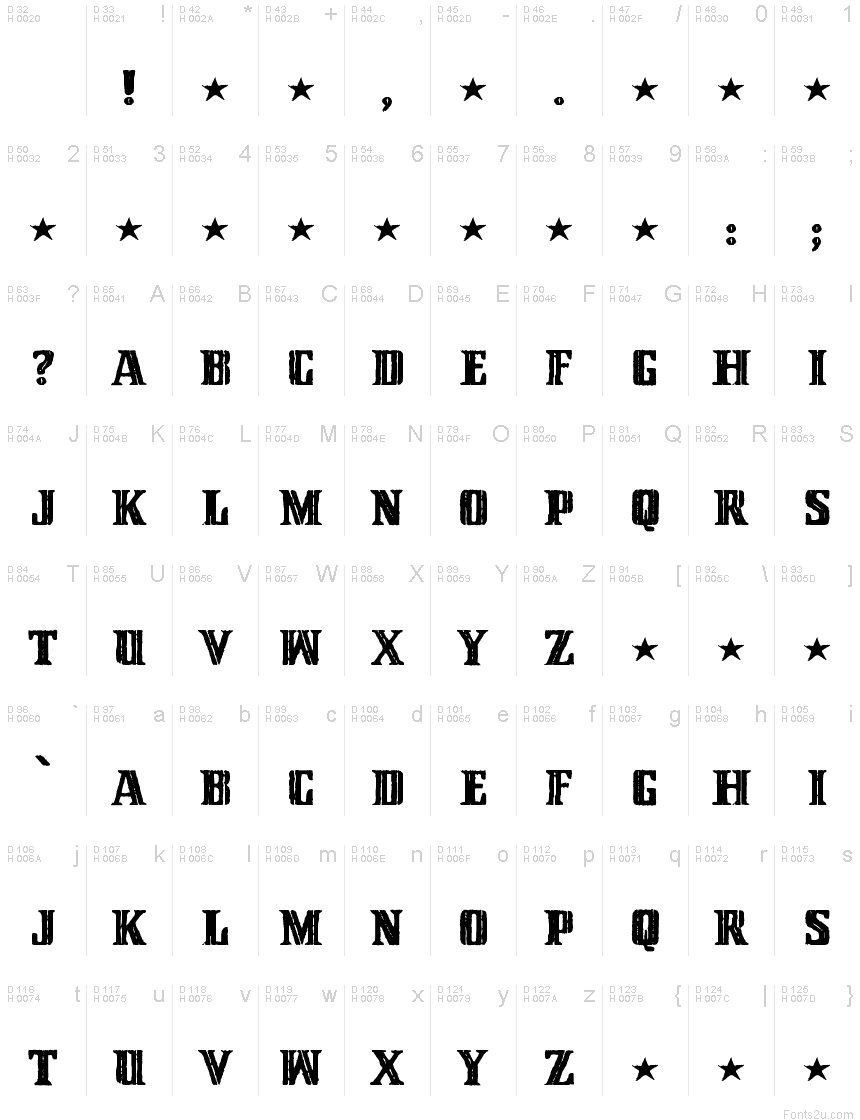
Cinquenta Mil Meticais
Cinquenta Mil Meticais font by Polenimschaufenster fonts is a free eroded display typeface with tall, slabby letters that look like they’ve been weathered by sun and grit. The heavy stems, chipped edges, and uneven inky texture give every word a raw, hand-printed energy that feels both vintage and slightly menacing, as if pulled from a battered carnival poster or outlaw flyer.
Using Cinquenta Mil Meticais, this free font shines on gig posters, horror titles, festival branding, craft beer labels, game logos, and editorial spreads that need a loud, gritty headline. Its compressed proportions help long words stay punchy in tight spaces, while the rough outlines keep layouts from feeling too polished. For balance, pair it with a simple grotesque sans in smaller sizes to keep your message readable and focused.